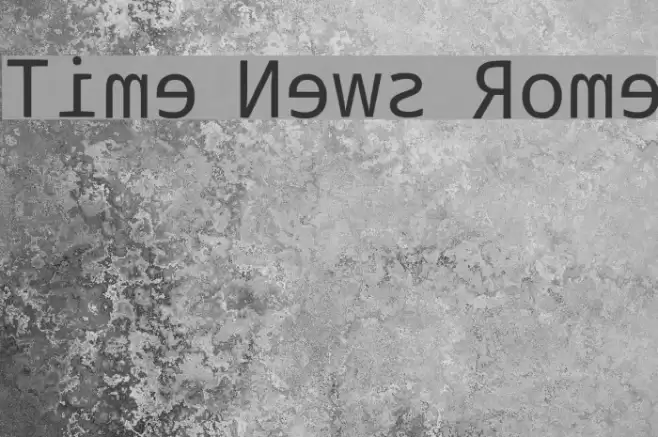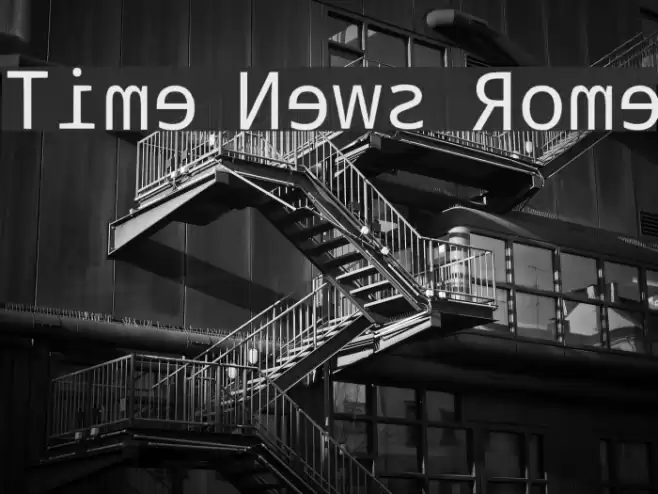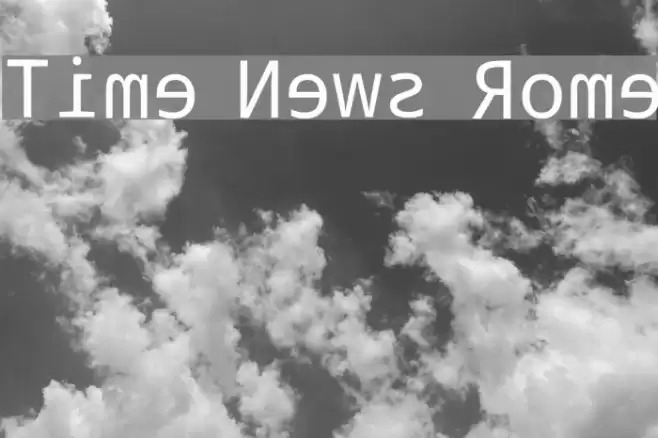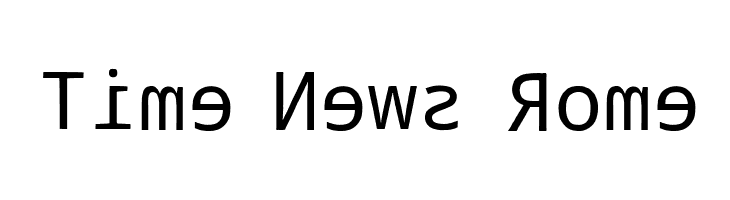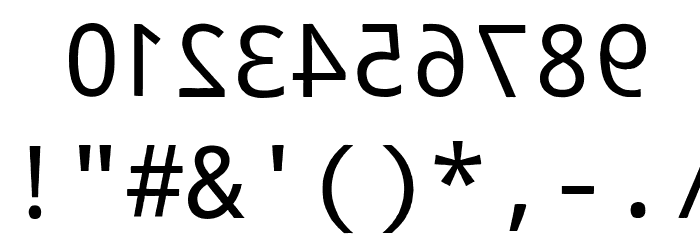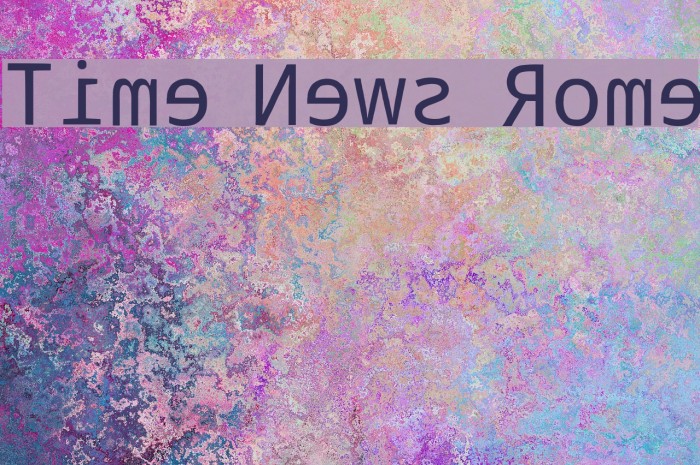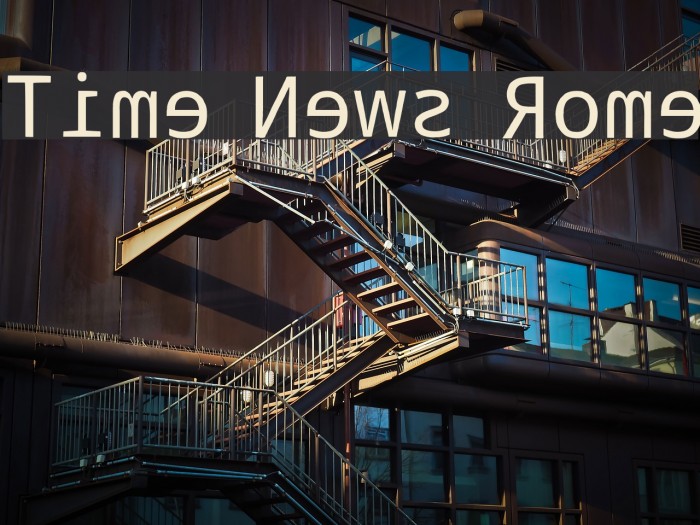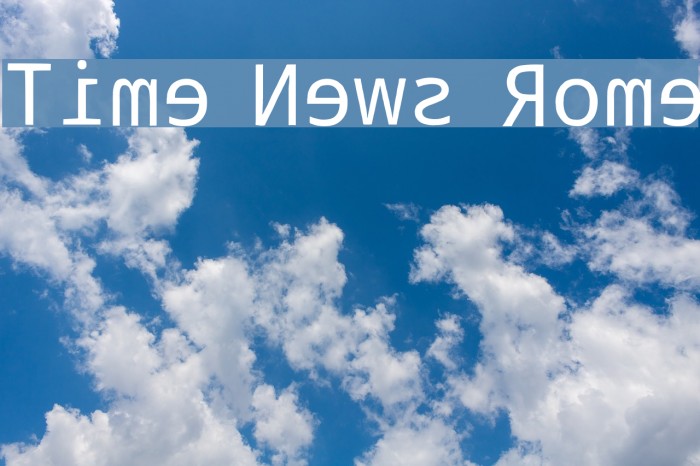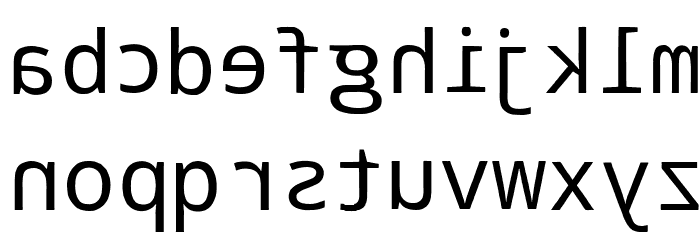
Time News Rome Font
Time News Rome Description
This font features a clean and modern sans-serif style, characterized by its geometric shapes and uniform stroke widths. The uppercase letters are bold and assertive, while the lowercase letters maintain a consistent and balanced appearance. The numerals are clear and straightforward, making them highly legible. Special characters are designed with simplicity, ensuring they blend seamlessly with the rest of the typeface. The overall design is minimalistic, with a focus on readability and functionality.
A modern, geometric sans-serif font with clean lines and uniform strokes from Uncategorized fonts.